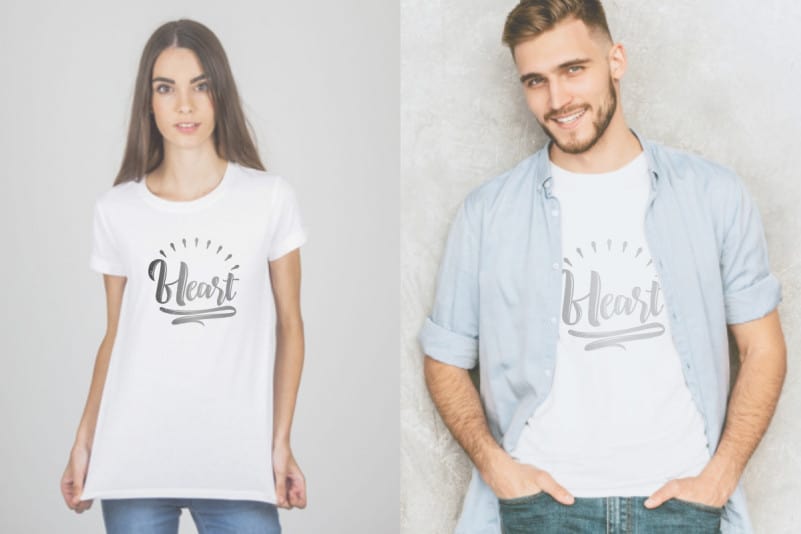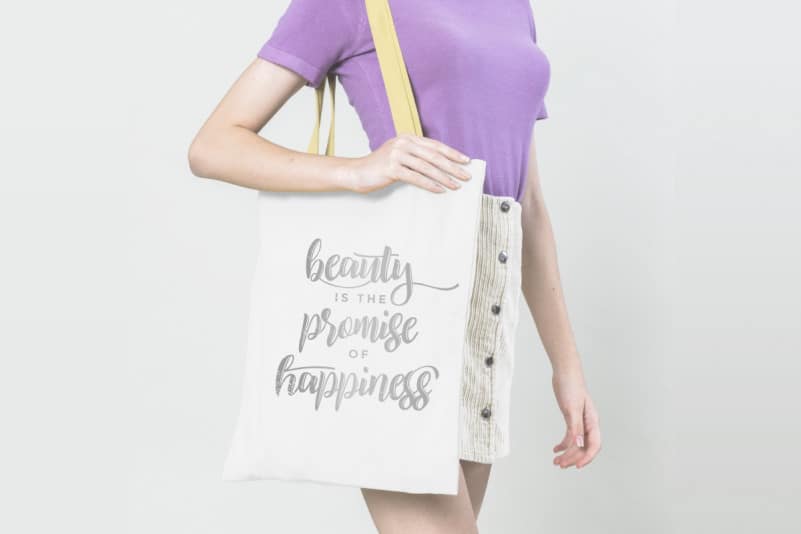
Jaillemon Brush Font
Jaillemon Brush Font is a brush script font with a unique style, inspired from retro typography from 80’s combined with bold typography lines style. This font is crafted carefully in every its single scratch, created to look as close to a natural brush so that it can create the perfect combination on each glyph. When we make this font, we really want to create a touch that is so free-flowing that it gives a natural impression on its use later. For example, if you want letter ‘s’ that has a flow sketch with letter ‘t’, you can find it in ‘st’ ligature glyph (just type in the text form below for trying). This awesome script is for anyone who need stylish style for their designs.
Jaillemon Brush Font includes full set of Uppercase and Lowercase Basic Characters, Numerals and Punctuation. Also it contains ligatures and a lot of stylistic alternates characters to perfectly make natural calligraphy look that add more beautiful and aesthetic fonts to perfect your extraordinary project.